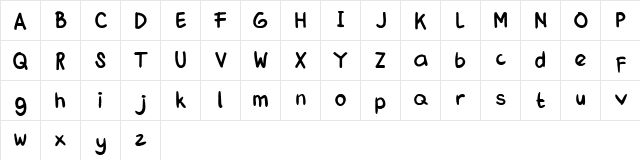
Pastelova Demo Demo Font Preview
Pastelova Demo Demo
Pastelova Demo Demo Font Details
Design Context for Pastelova Demo Typeface
Pastelova Demo is a composed and adaptable typeface that performs quietly and consistently across a wide range of design contexts.